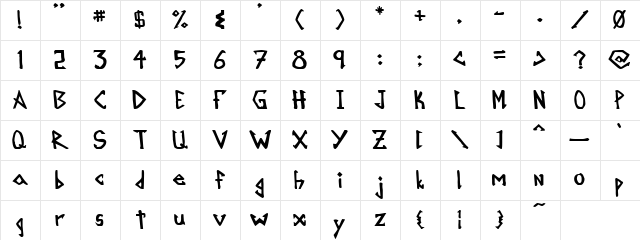
Mikroprepeia Regular
Design Context for Mikroprepeia
Mikroprepeia is a composed and adaptable typeface that performs quietly and consistently across a wide range of design contexts.